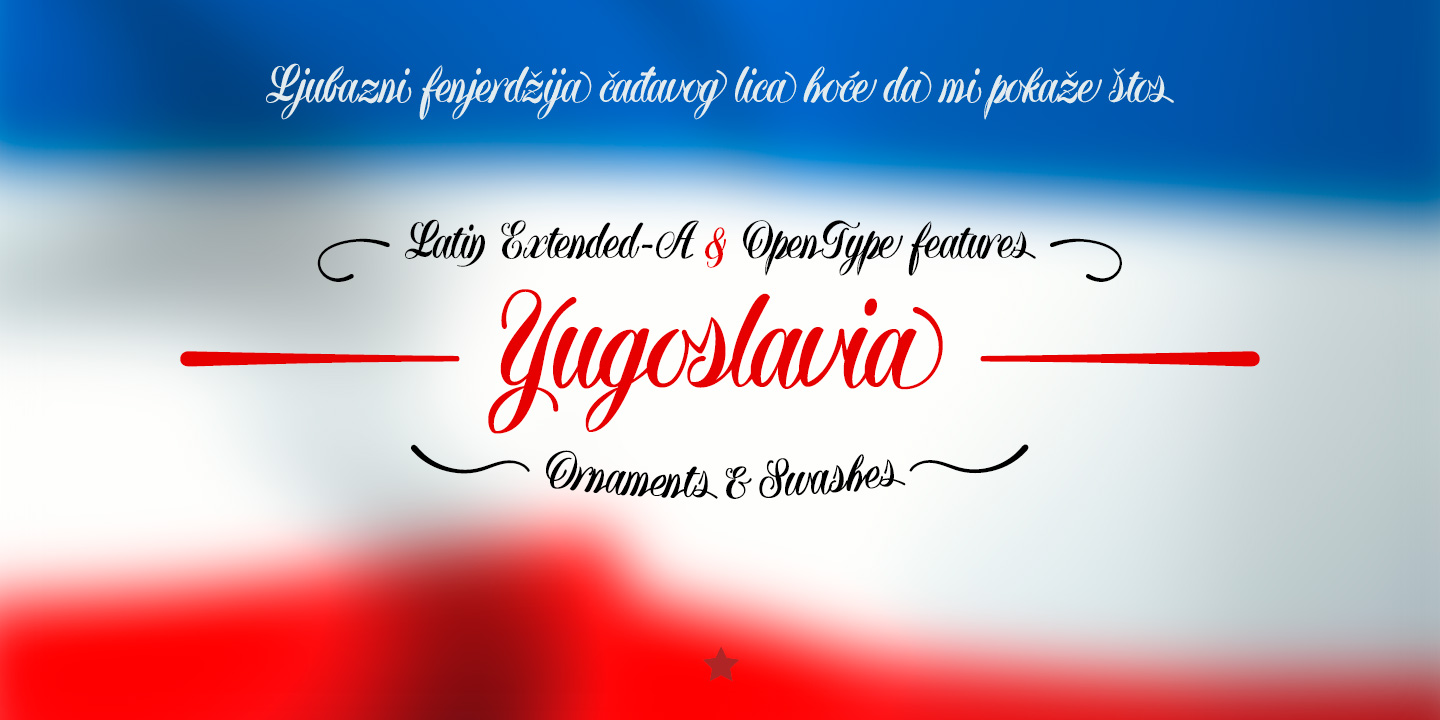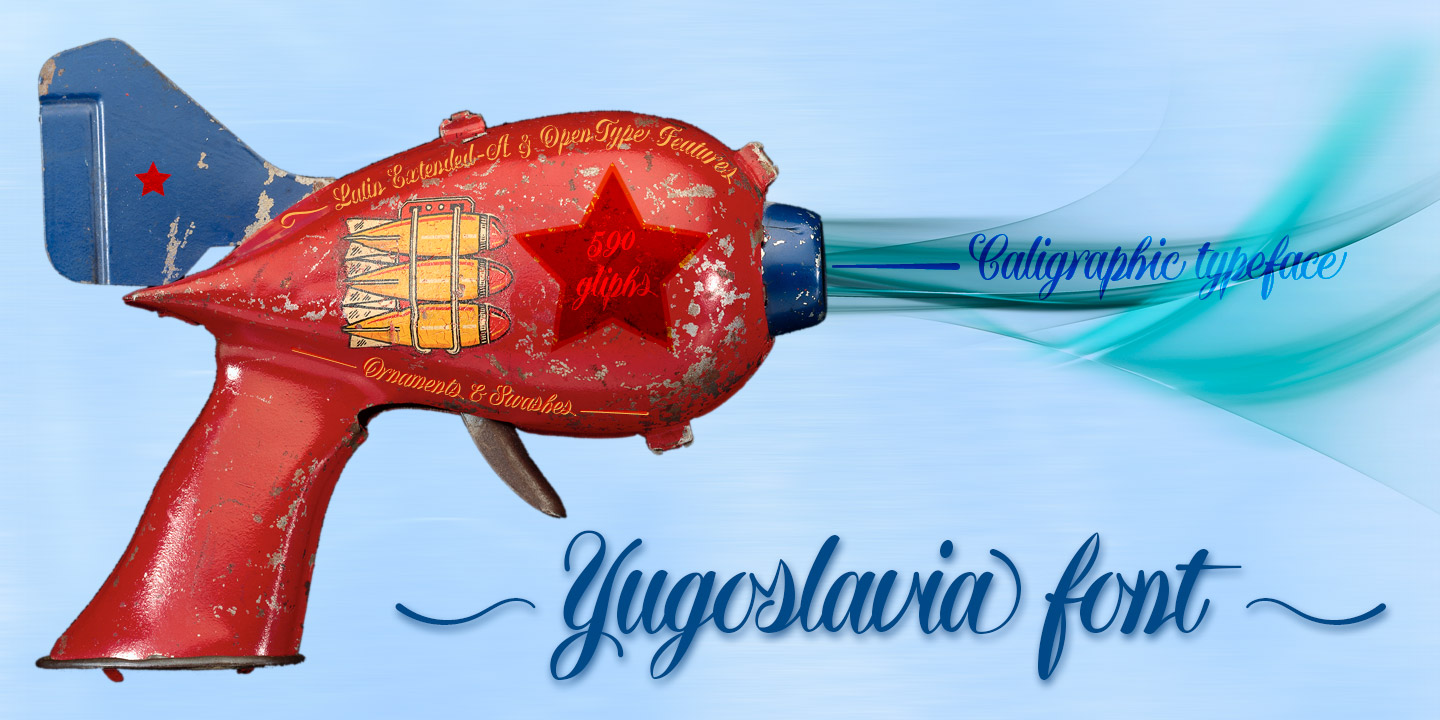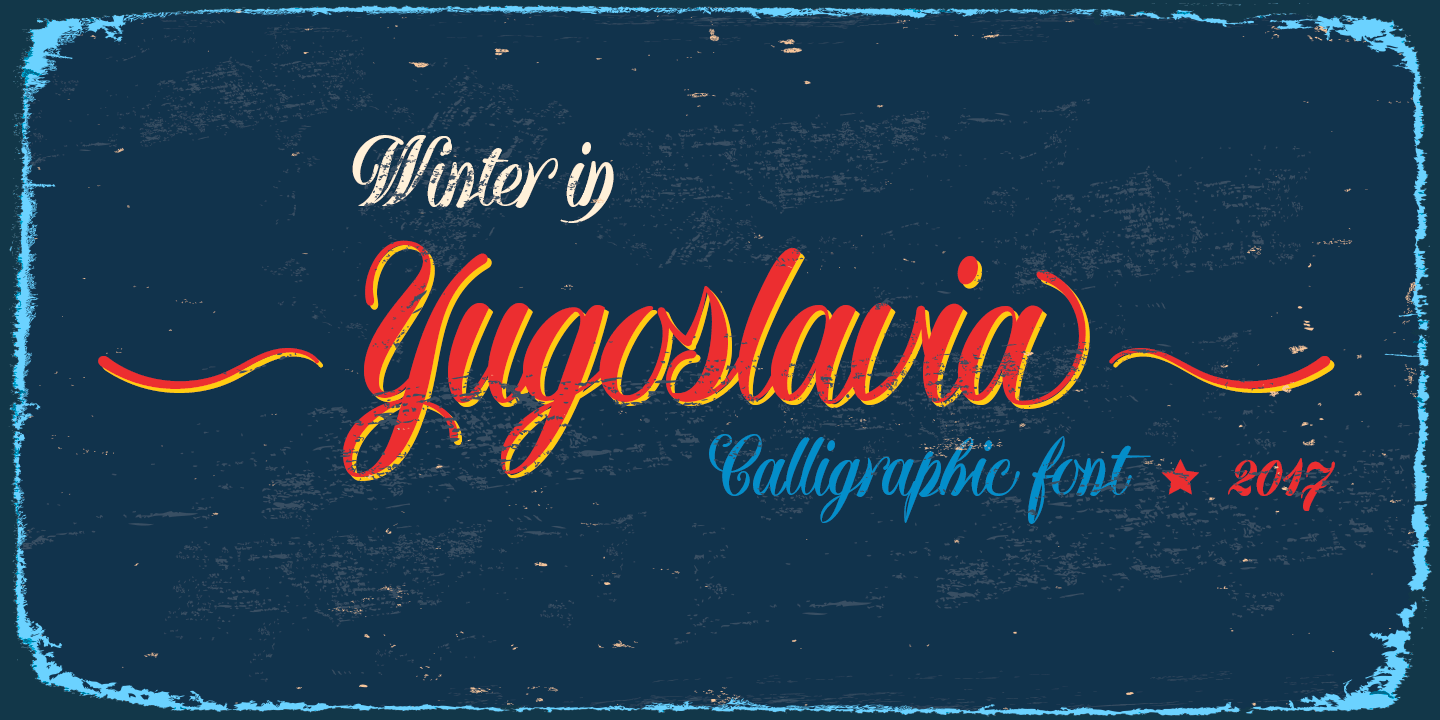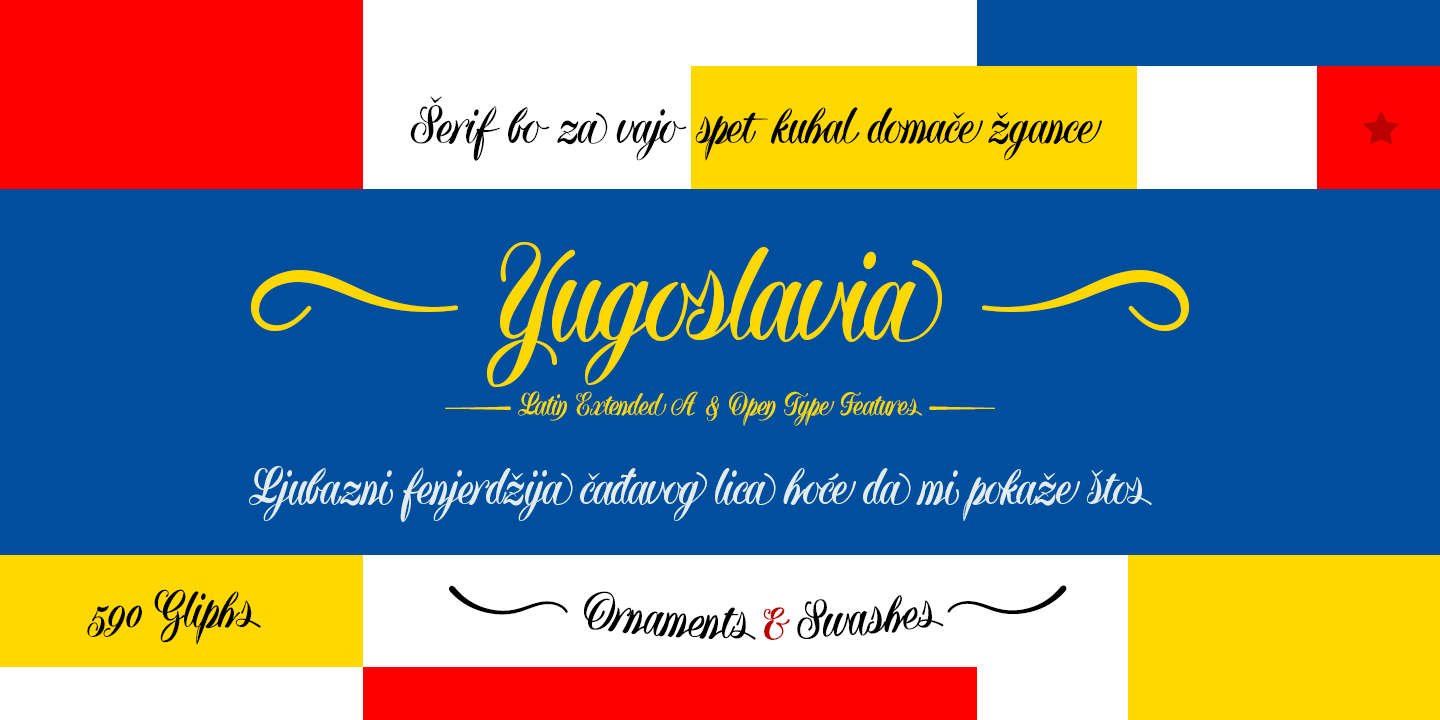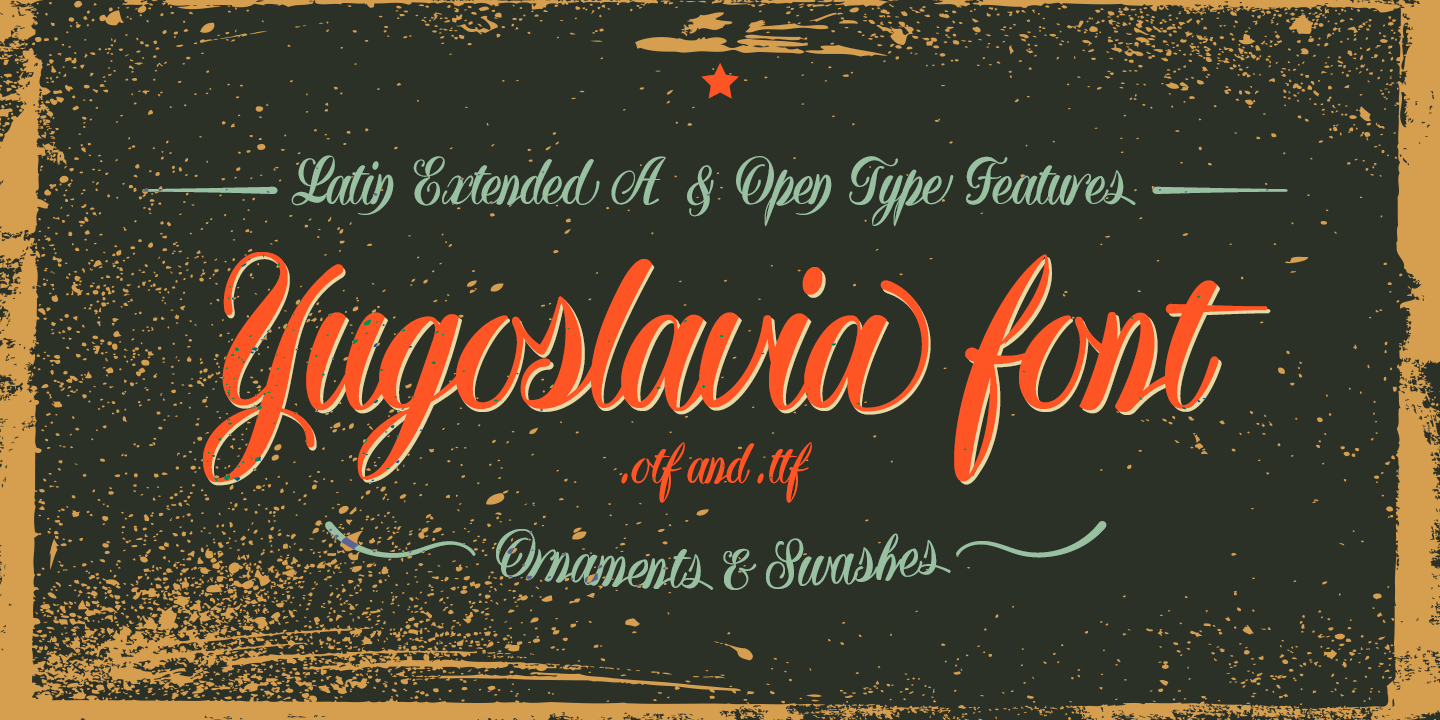
HomeScript FontsYugoslavia Font Script Fonts Yugoslavia Font FacebookXPinterestWhatsApp Yugoslavia Font Poster 2 Yugoslavia Font Poster 3 Yugoslavia Font Poster 4 Yugoslavia Font Poster 5 Yugoslavia Font Poster 6 About Yugoslavia Font Yugoslavia is an elegant calligraphic font created with a fine pen tip. DOWNLOAD ON CREATIVE FABRICAThis font is sold and delivered by Creative Fabrica. Font Canyon may earn a commission if you buy through this link. People also explored Sony Sporshe Smartcarol Font School Font Love Me Font Gathering Font Sukuratchi Font Greates Draken Font Great Banana Font Music Font 368 0 TagsYugoslavia Font Previous articleCatarg FontNext articleRotulona Hand Font LEAVE A REPLY Cancel reply Comment: Please enter your comment! Name:* Please enter your name here Email:* You have entered an incorrect email address! Please enter your email address here Website: Save my name, email, and website in this browser for the next time I comment. Personal Use Free JVNE Smoothdron Personal Use Free Read more about this font Engine Personal Use Free Read more about this font Cute Butterfly Personal Use Free Read more about this font Boronic Personal Use Free Read more about this font BLOG Best Fonts for YouTube Videos: Make Your Thumbnails Stand Out Best Fonts for YouTube Videos: Make Your Thumbnails Stand Out Choosing the right font can make a massive difference in how your YouTube videos perform.... The 10 Best Handwriting Fonts to Add Personality to Your Designs Where to Buy American Fonts Online in 2024 Top 7 Google Fonts Alternatives for Faster and Privacy-Friendly Web Design (2025)